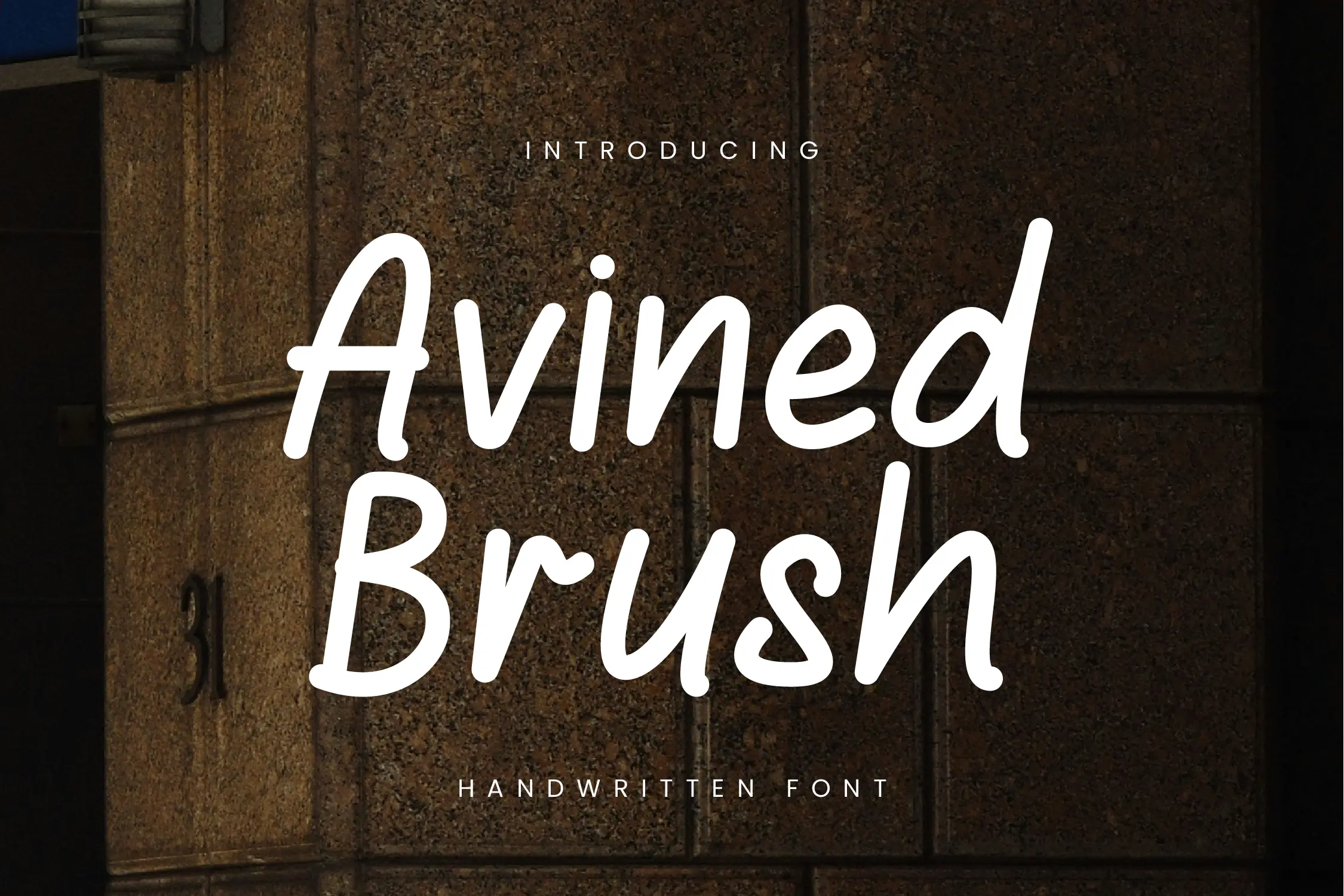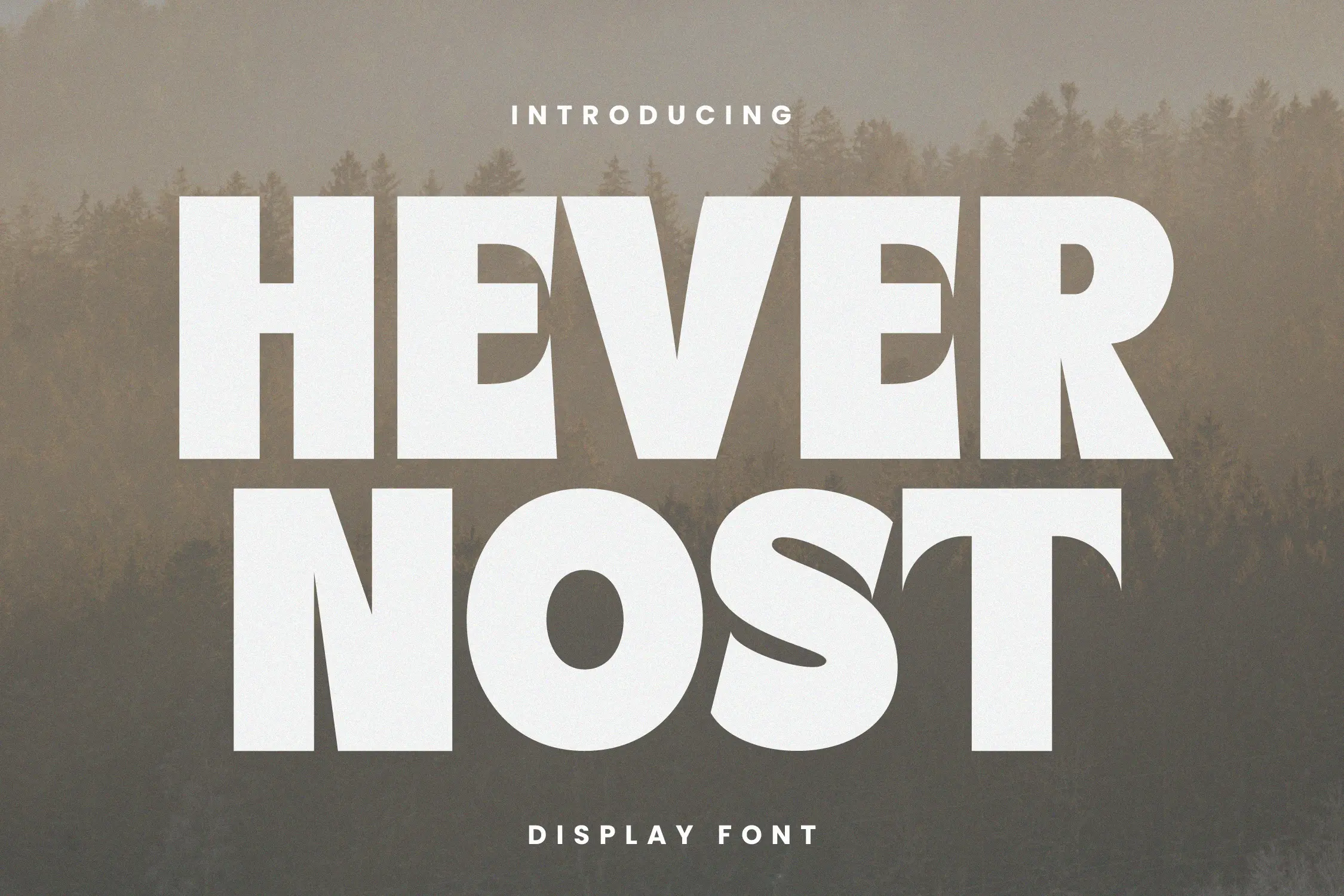
Selecting the right display font is essential for creating eye-catching and memorable designs. Display fonts are crafted to stand out, making them perfect for branding, advertisements, and other visually engaging projects. Below is a curated list of ten outstanding display fonts from Rvandtype that can elevate your creative work.
Havernost is a bold and commanding display font designed to capture attention instantly. With its thick strokes and strong letterforms, it works exceptionally well for headlines, posters, and branding materials that require an authoritative presence. The fontโs modern yet classic aesthetic ensures versatility across various design styles. Whether used in digital or print media, Havernost maintains its clarity and impact. Its powerful design makes it a top choice for projects that need to make a lasting impression.
Beyond its visual strength, Havernost is also highly legible, making it practical for various applications. It ensures that key messages remain prominent without sacrificing readability. This fontโs structured design allows it to pair well with minimalist or high-contrast elements, enhancing its versatility. When used in branding, Havernost can establish a sense of reliability and professionalism. Its ability to command attention makes it ideal for industries that require strong visual branding.
If you want to create a sense of boldness in your designs, Havernost is a perfect choice. It embodies confidence and energy, making it a go-to option for impactful visual storytelling. This font is excellent for businesses looking to establish a modern and robust identity. Whether for packaging, advertisements, or website headers, Havernost ensures that your content stands out. Investing in a high-quality display font like Havernost can significantly elevate your brandโs perception.
Harena is a sleek and elegant display font known for its sophisticated design. With smooth curves and refined letterforms, it is an excellent choice for luxury branding and editorial layouts. This fontโs subtle details give it a high-end feel, making it suitable for industries such as fashion, beauty, and upscale hospitality. Harenaโs clean yet stylish aesthetic ensures that your content remains visually appealing. It is a great option for designers looking to add a touch of class to their projects.
One of the main advantages of Harena is its ability to balance elegance with readability. Despite its decorative elements, it maintains clarity even when used in long-form content. This makes it suitable for magazine covers, branding materials, and website headers. The fontโs lightweight and graceful structure create a refined atmosphere without overpowering the design. Harena works exceptionally well when paired with minimalistic layouts and neutral color palettes.
Designers who seek a timeless yet modern typeface will find Harena to be an excellent investment. It effortlessly enhances the aesthetic appeal of any project, adding an element of sophistication. Whether used in luxury product packaging or promotional materials, this font exudes exclusivity. Harenaโs versatility allows it to be adapted for both print and digital media. With its refined elegance, this display font elevates your brandโs visual identity.
Avined Brush is a dynamic handwritten font that adds personality and warmth to designs. Its natural, hand-painted strokes bring a sense of authenticity to branding and creative projects. This font is ideal for social media graphics, invitations, and logo designs that require a personal touch. Avined Brushโs organic appearance helps establish an emotional connection with the audience. It is perfect for businesses that want to convey friendliness and approachability.
The free-flowing nature of Avined Brush makes it highly versatile for various design themes. Whether used in fashion, lifestyle, or artisan branding, it brings a distinctive handcrafted feel. The fontโs textured strokes enhance its visual appeal, making it great for DIY-themed projects. Its ability to mimic real handwriting adds uniqueness to every design. Avined Brush is a great option for creative professionals who want to bring originality to their work.
Despite its informal style, Avined Brush retains excellent readability across different formats. It works well on digital platforms, maintaining its authentic feel even at smaller sizes. Designers can use it for product packaging, personal branding, or custom merchandise. The font pairs beautifully with simple sans-serif fonts, creating a balanced design. With Avined Brush, you can bring a handcrafted and artistic quality to any project.
Rush Highty is a bold and energetic display font designed to create a striking visual impact. Its strong, thick letterforms make it perfect for attention-grabbing headlines, posters, and advertising campaigns. The fontโs unique design exudes confidence, making it an excellent choice for brands looking to make a bold statement. Rush Hightyโs contemporary yet slightly vintage aesthetic allows it to blend well with various design styles. Whether used for digital media or print, this font guarantees maximum visibility.
FAQs
Why are display fonts important for design?
Display fonts enhance visual impact and help establish a strong brand identity.